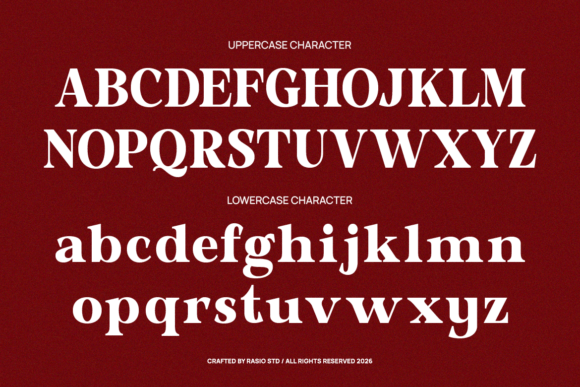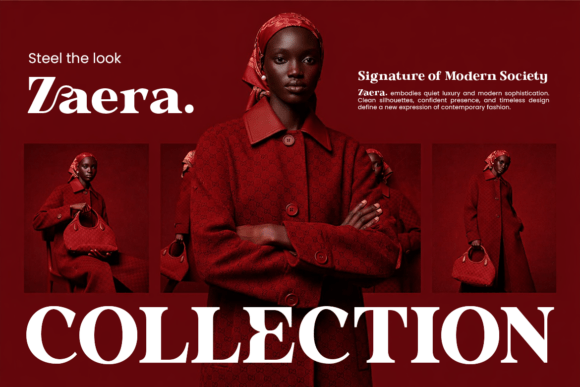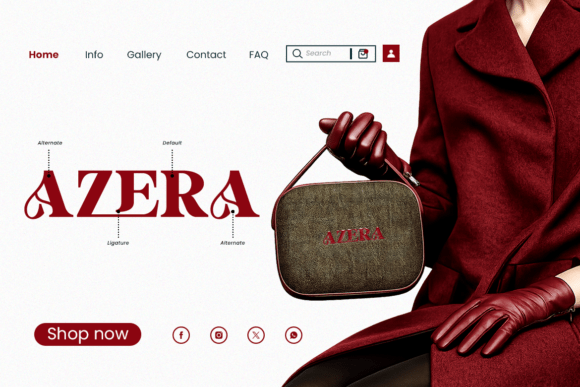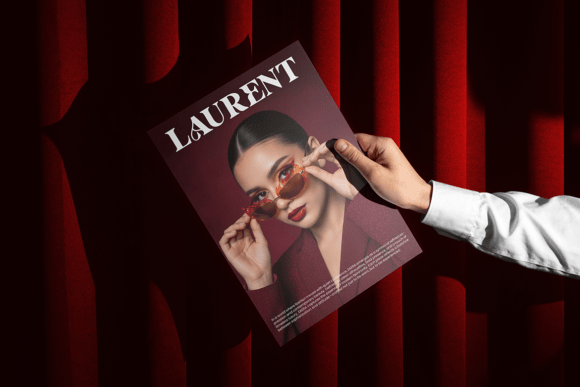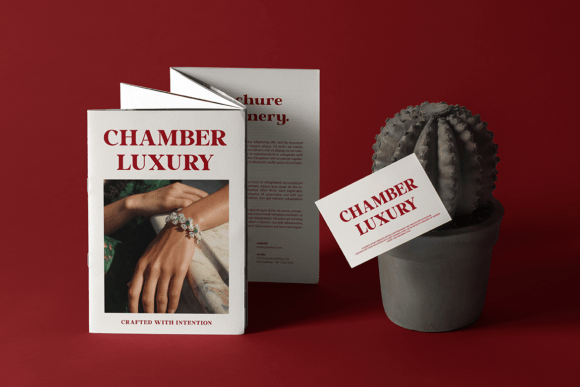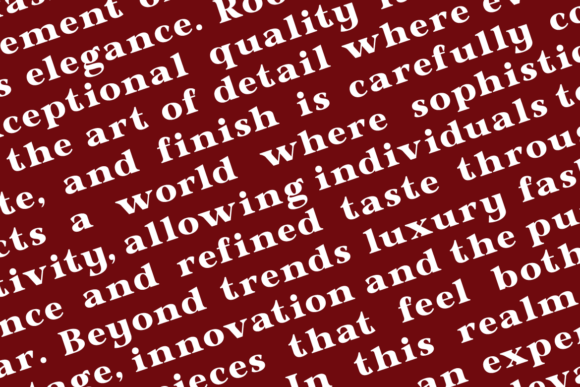
Introduction to Lecaria Font
Lecaria is a modern editorial serif font designed with a refined balance of elegance and contemporary structure.
It features high-contrast strokes, sharp serif details, and stylish alternates that elevate typographic compositions with a premium feel Carefully crafted spacing and proportions make Lecaria highly readable while maintaining a strong visual identity for display and editorial use.